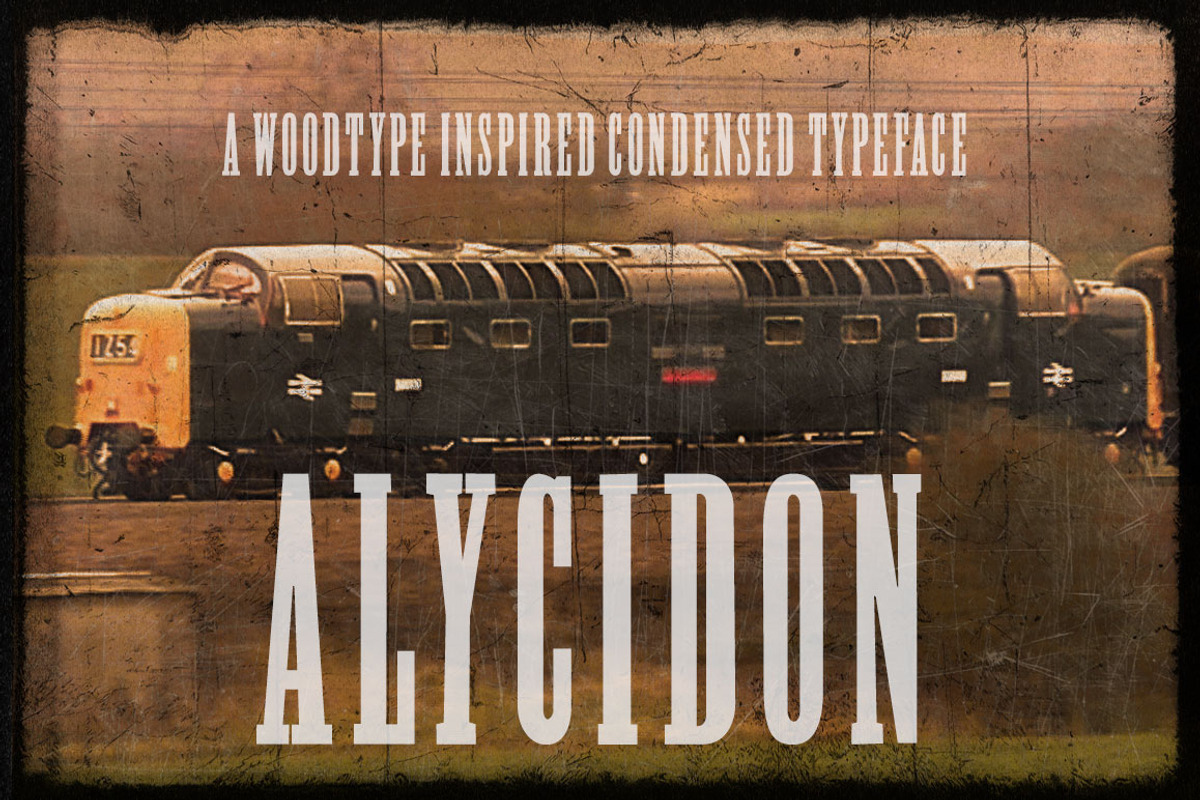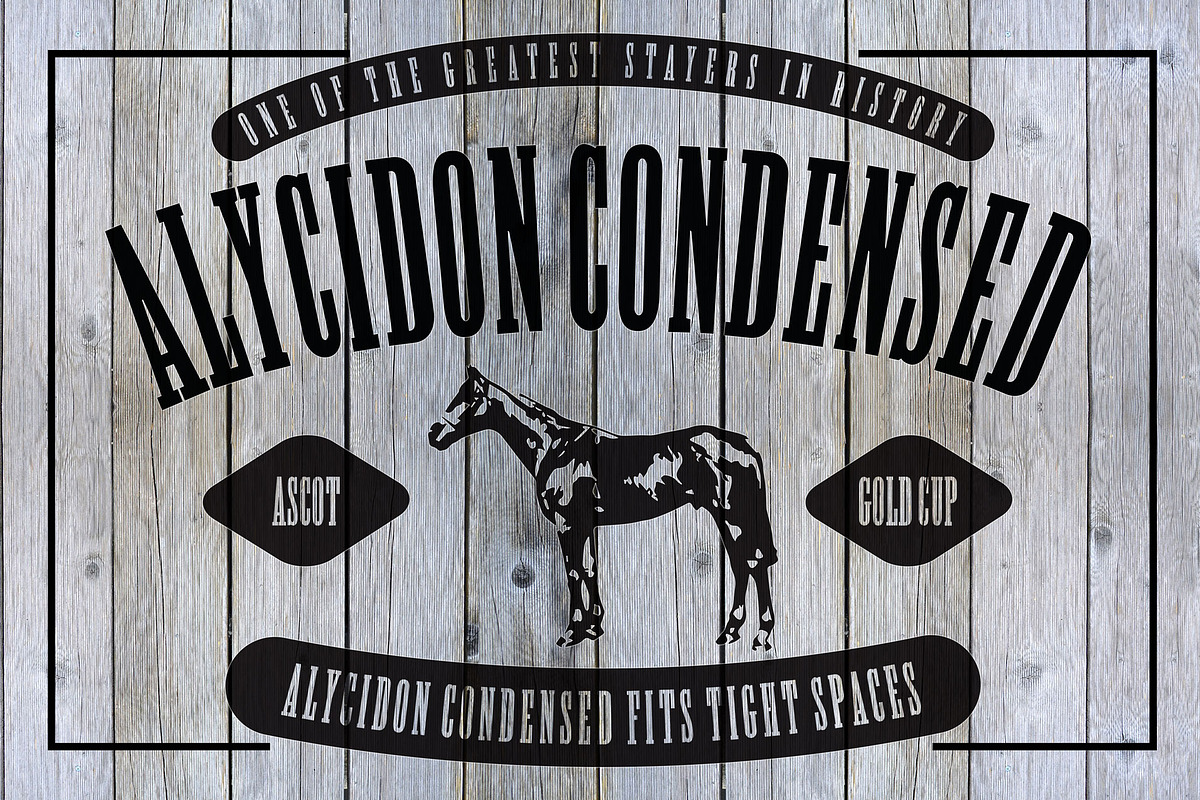
Alicydon Condensed Woodblock Font
Alicydon Condensed Woodblock Font by Kitch22 Foundry is a font selected for branding, posters, packaging, typography.
- Alycidon Condensed
Why Alicydon Condensed Woodblock Font is worth a look
Alicydon Condensed Woodblock Font by Kitch22 Foundry fits naturally into Branding, posters, packaging, typography.